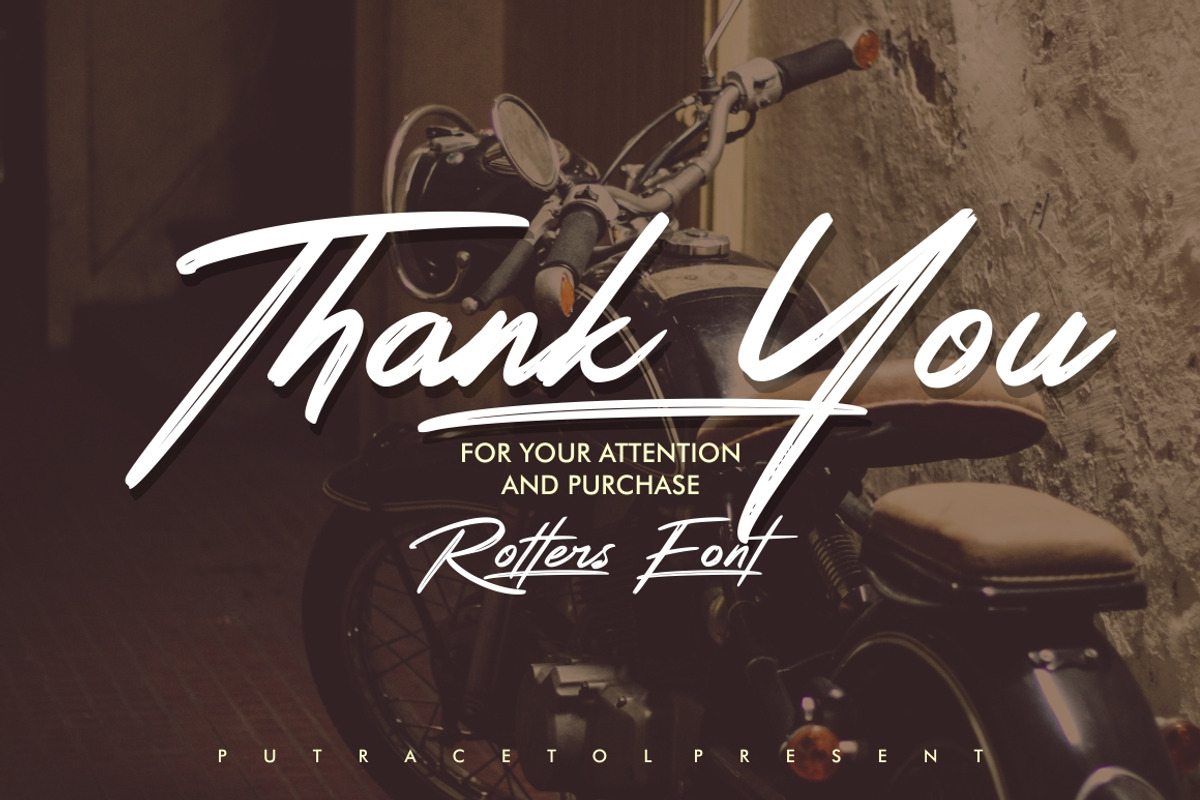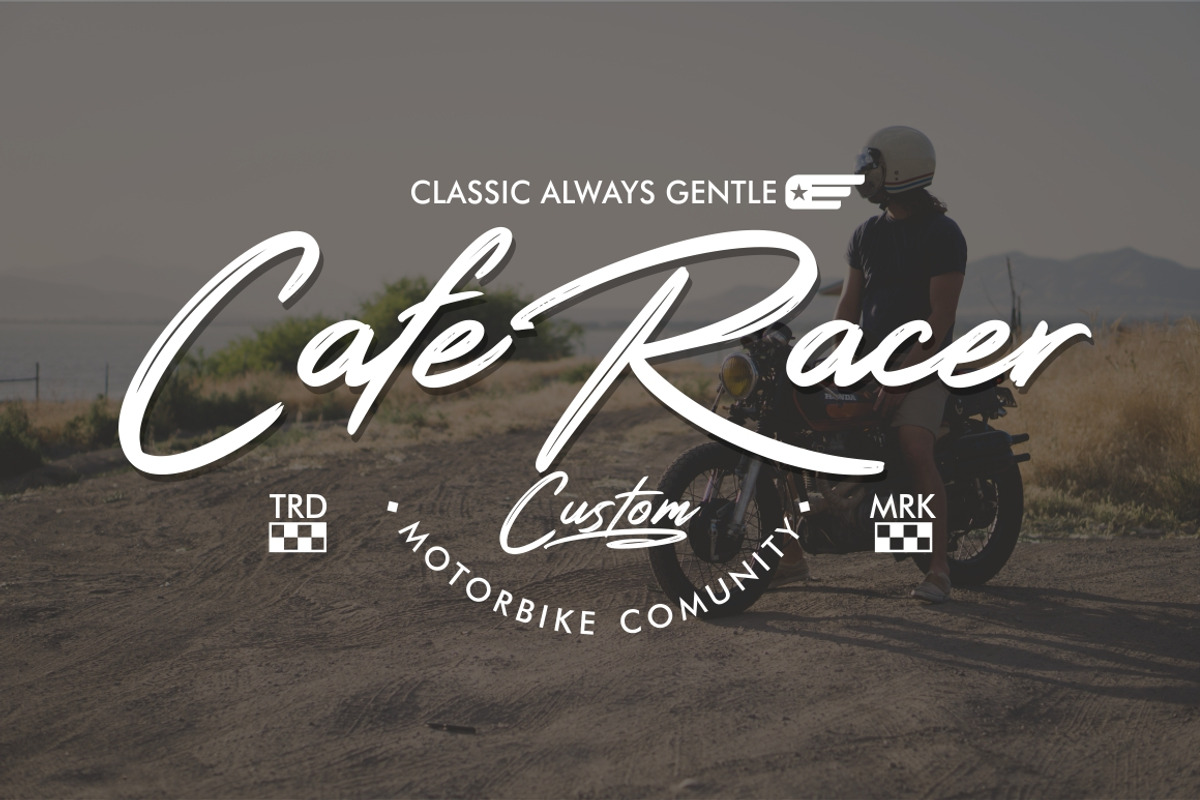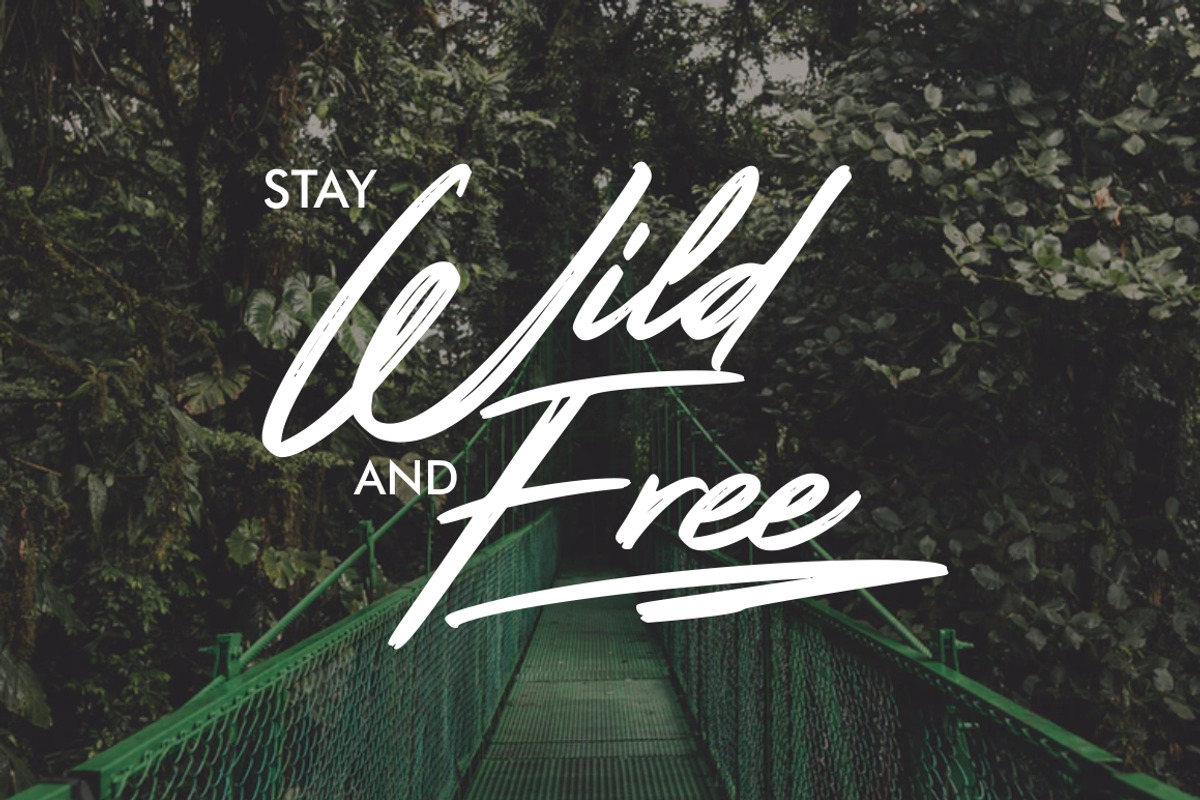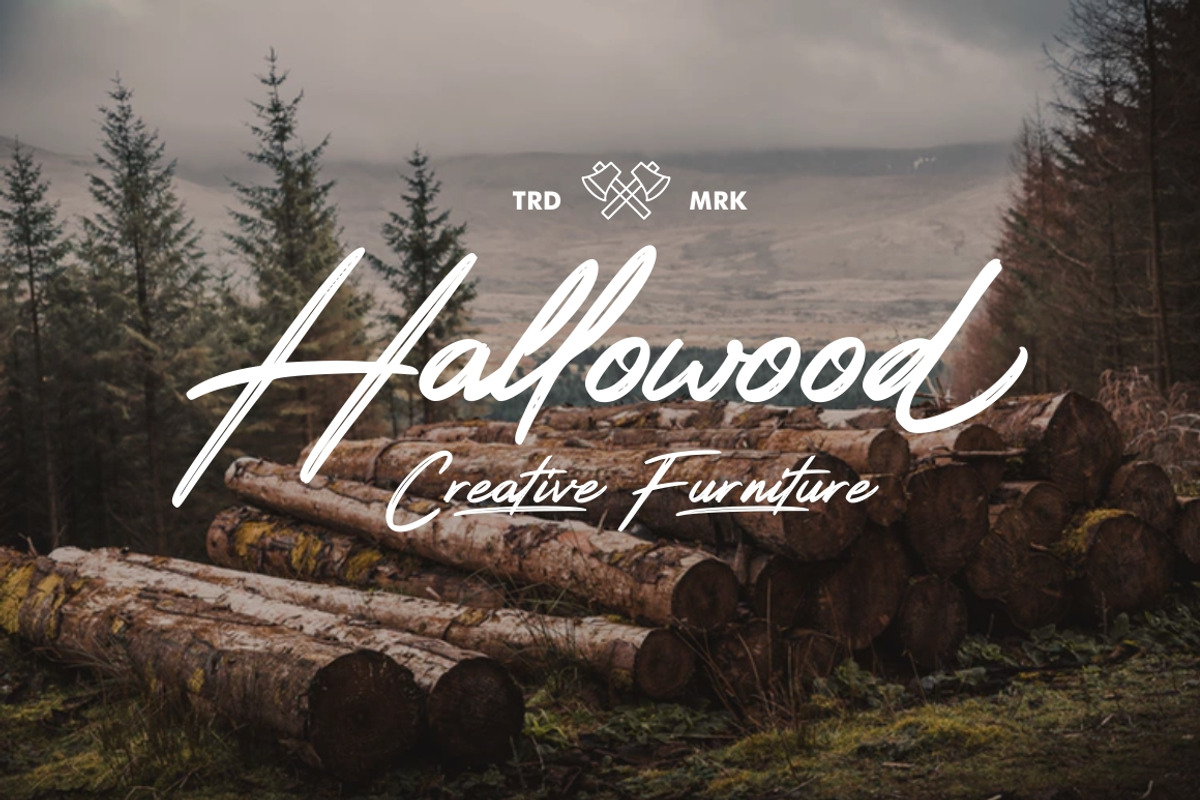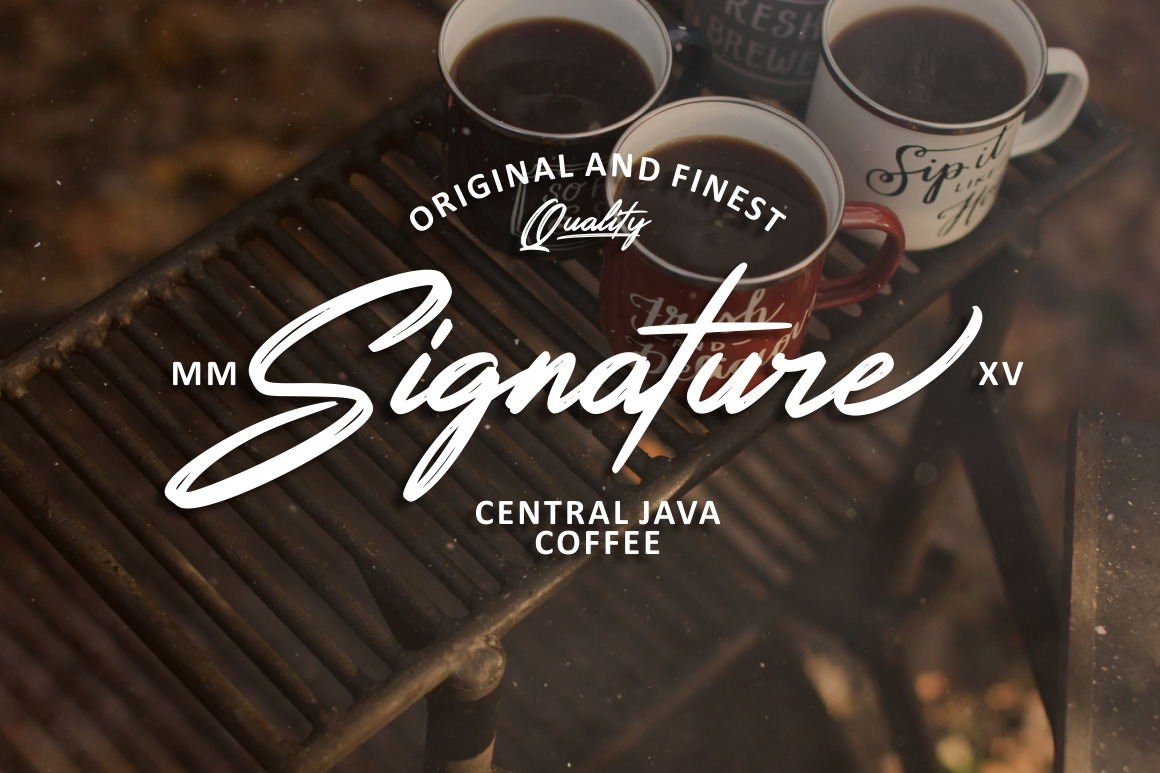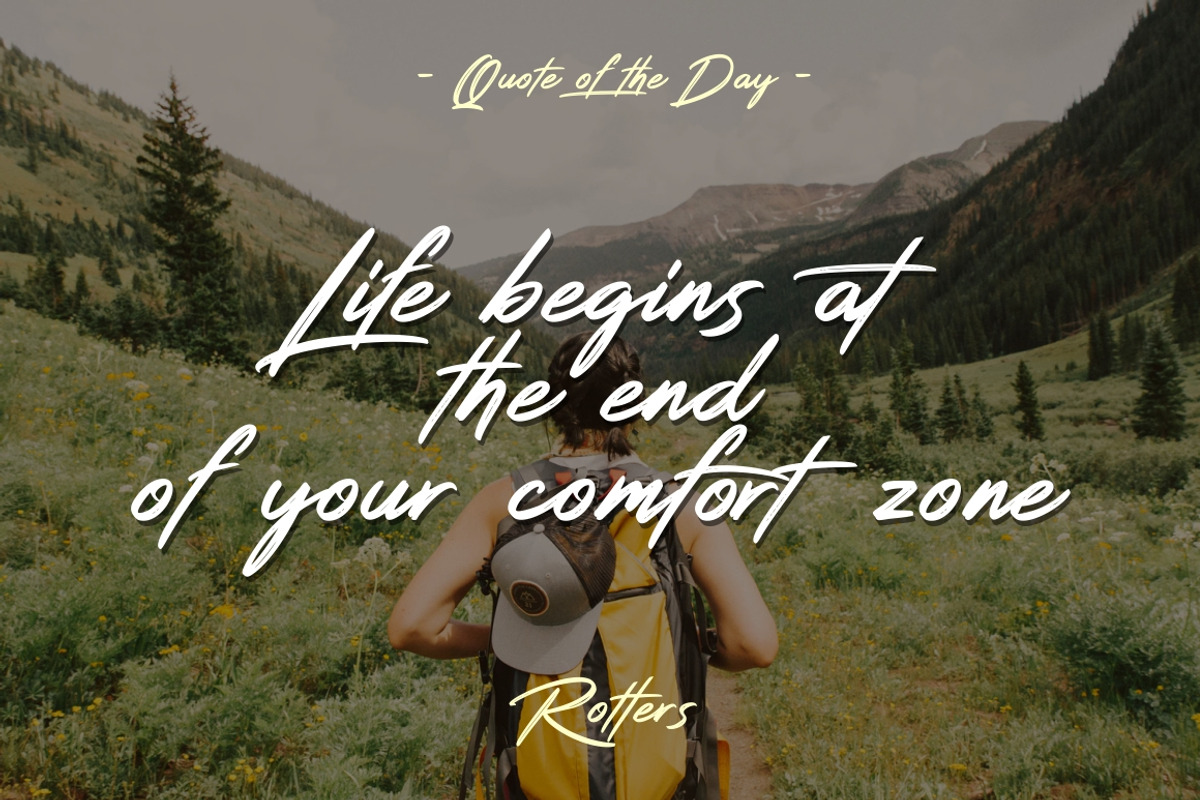
Rotters - Handbrush Font
Introducing Rotters
Rotters is a modern brush font with handwritten style and natural rough dry brush strokes. Rotters perfect for logo, signature, quote, branding projects, wedding designs, social media posts, advertisements, product packaging, product designs, label, photography, watermark, invitation, stationery, and many more project.
Comes with feature :
- Alternate & Ligature
- Number, Punctuation And Symbols